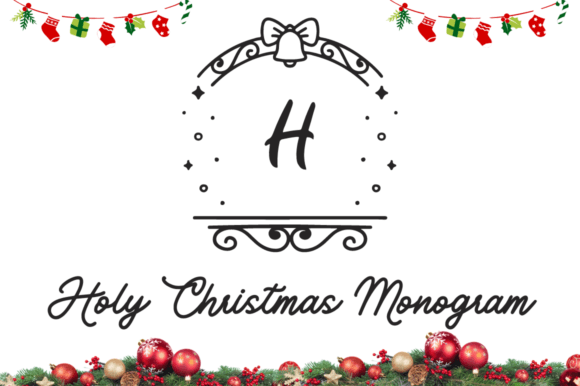
Introducing Holy Christmas Monogram Font, the ultimate festive font family inspired by the magic of Christmas and the warmth of winter. Designed with intricate details and delicate ornaments, this decorative font exudes elegance and charm, transforming your designs into captivating masterpieces.
Immerse yourself in the enchanting world of Holy Christmas Monogram, where every letter and symbol is a work of art. This font family captures the essence of the holiday season, evoking feelings of joy, love, and togetherness. Let your creativity shine as you craft stunning designs that resonate with the spirit of Christmas.
From personalized holiday letters and cards to enchanting logos and branding, Holy Christmas Monogram adds a touch of festive cheer to any project. Its versatile nature makes it perfect for a wide range of applications, including social media posts, invitations, posters, and packaging designs.
With Holy Christmas Monogram, you'll have the power to create designs that stand out from the ordinary and capture the attention of your audience. Its intricate details and elegant curves add a touch of sophistication to your work, making it the perfect choice for businesses looking to make a lasting impression.